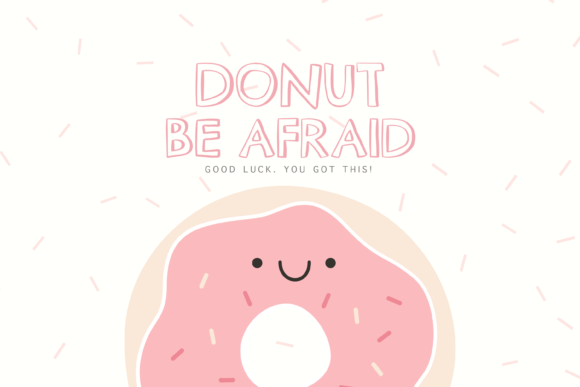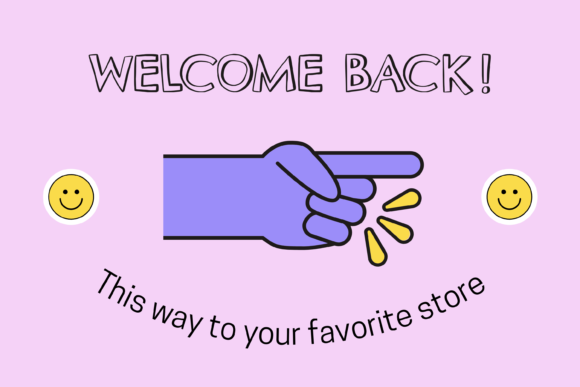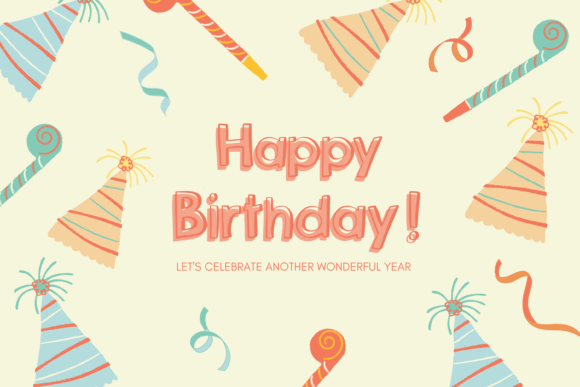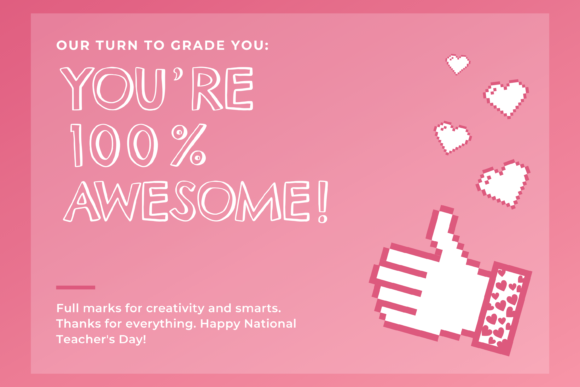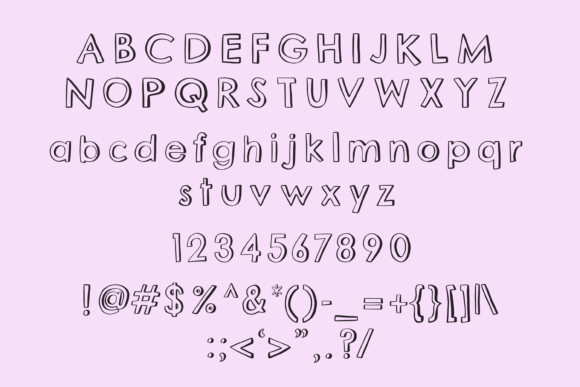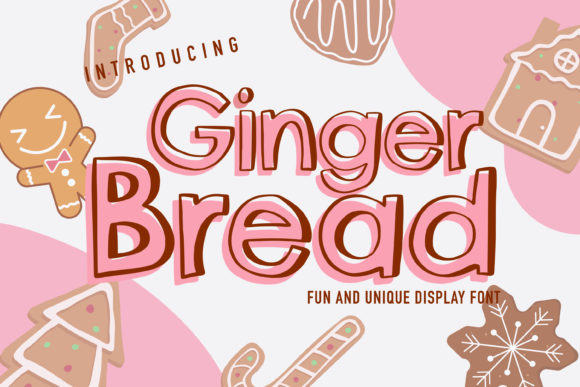
Gingerbread Font: The Perfect Choice for Whimsical Designs
Gingerbread is a delightful and charming display font that exudes playfulness and authenticity. Its unique and endearing style makes it an ideal choice for any children’s activity or school project. In this article, we’ll dive into the world of Gingerbread Font, exploring its features, uses, and benefits for designers and crafters.
What is Gingerbread Font?
Gingerbread Font is a carefully crafted display font designed to bring a touch of whimsy and fun to any design project. Its distinctive style is reminiscent of traditional gingerbread cookies, with bold lines, rounded edges, and a sweet charm that’s hard to resist.
Key Features of Gingerbread Font
- Playful and Authentic: Gingerbread Font embodies the spirit of playfulness and authenticity, making it perfect for designs that require a personal touch.
- Cute and Fun: The font’s adorable design is sure to bring a smile to anyone’s face, making it an excellent choice for children’s activities, school projects, and craft designs.
- Display Font: Gingerbread Font is specifically designed as a display font, ideal for headlines, titles, and short phrases that require a bold and eye-catching style.
- Easy to Read: Despite its playful design, Gingerbread Font remains easy to read, making it suitable for a wide range of applications, from posters and flyers to digital graphics and crafts.
Uses of Gingerbread Font
Gingerbread Font is an incredibly versatile font that can be used in various design projects, including:
- Children’s Activities: Create engaging and interactive materials for kids, such as worksheets, coloring pages, and activity sheets.
- School Projects: Add a touch of personality to school projects, presentations, and posters with Gingerbread Font’s playful and authentic style.
- Craft Designs: Use Gingerbread Font to create adorable craft designs, such as greeting cards, gift tags, and scrapbook pages.
- Digital Graphics: Incorporate Gingerbread Font into digital graphics, like social media posts, blog headers, and website designs, to add a whimsical touch.
Benefits of Using Gingerbread Font
By incorporating Gingerbread Font into your design projects, you’ll enjoy several benefits, including:
- Unique Style: Stand out from the crowd with Gingerbread Font’s distinctive and charming design.
- Time-Saving: With Gingerbread Font, you can create engaging and visually appealing designs quickly and efficiently.
- Fun and Creative: The font’s playful style encourages creativity and experimentation, making the design process enjoyable and fun.
Tips for Using Gingerbread Font
To get the most out of Gingerbread Font, follow these tips:
- Pair with Complementary Fonts: Combine Gingerbread Font with complementary fonts to create visually appealing and harmonious designs.
- Experiment with Colors: Play with different colors and textures to enhance the font’s playful and whimsical style.
- Keep it Simple: Use Gingerbread Font sparingly to avoid overwhelming the design, and balance it with negative space for a clean and crisp look.
Gingerbread Font is a delightful and charming display font that’s perfect for designers and crafters looking to add a touch of whimsy and fun to their projects. With its playful and authentic style, ease of use, and versatility, Gingerbread Font is an excellent choice for children’s activities, school projects, craft designs, and digital graphics. So why not give Gingerbread Font a try and bring a smile to your audience’s faces?